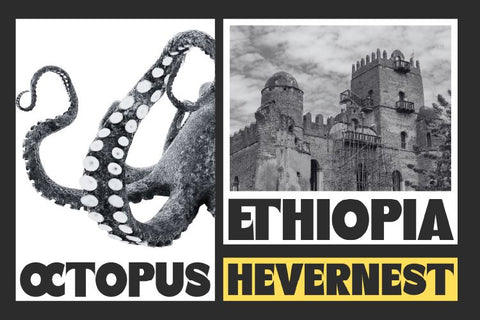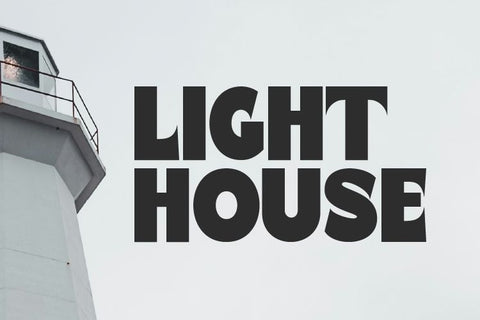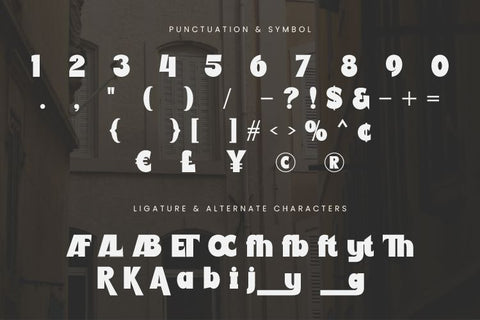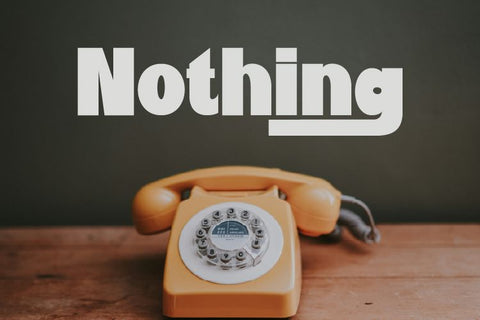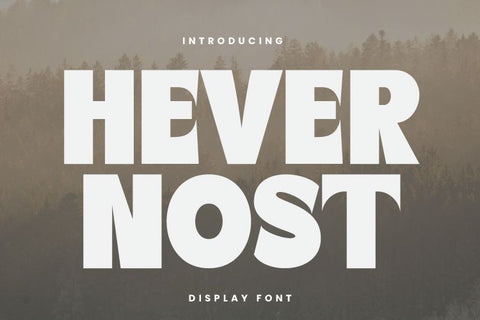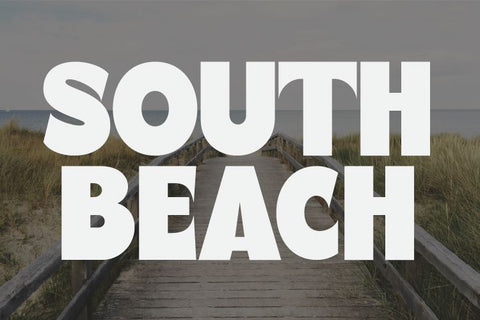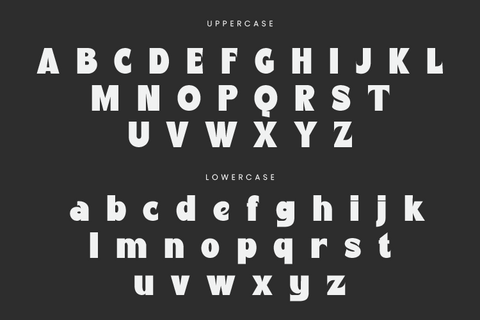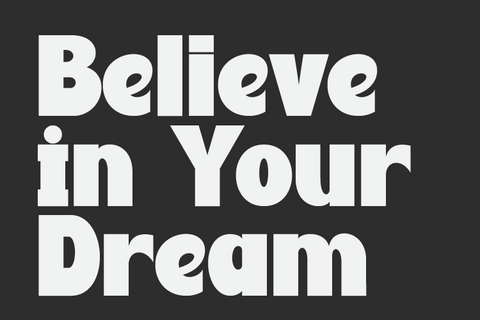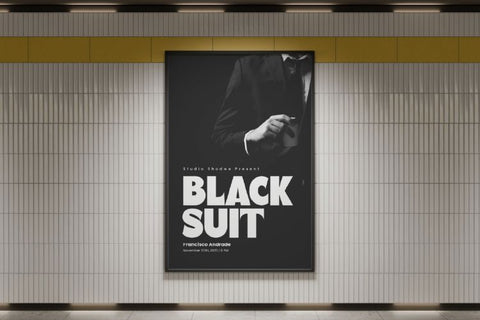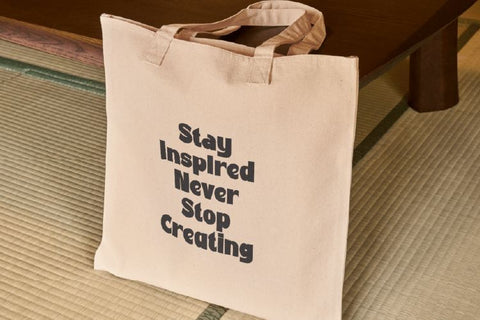
Havernost Display Font
Hevernost is a powerful and attention-grabbing display font designed to make your messages stand out. With its strong and bold letterforms, this typeface is perfect for projects that require a striking visual impact. Whether you’re designing headlines, posters, logos, or branding materials, Hevernost Bold ensures your text is unmissable. Hevernost font is PUA encoded which means you can access all of the glyphs.
- Numbers and punctuation
- Multilingual
- Alternate Characters